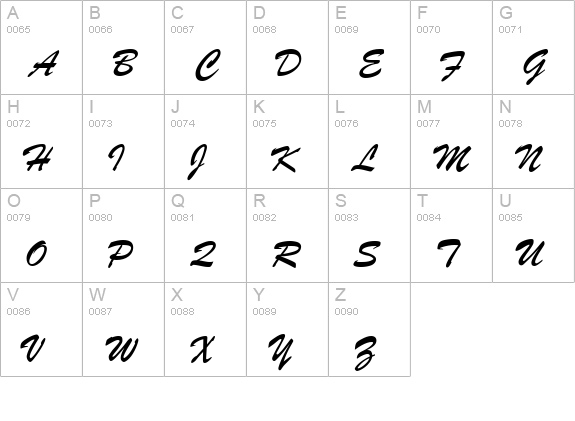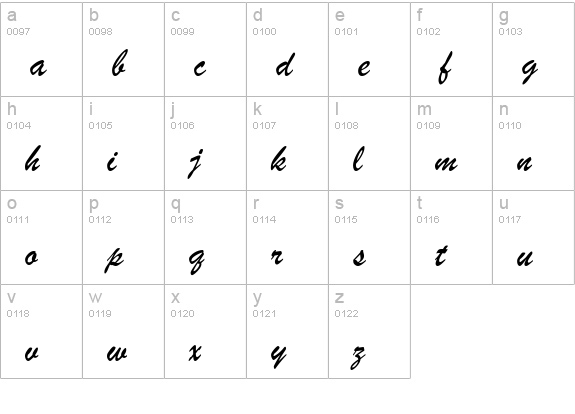
brush script mt italic font
Brush script mt style.
Brush script mt italic font. Onlinewebfontscom is internet most popular font online download websiteoffers more than 8000000 desktop and web font products for you to preview and download. Its popularity persevered via the 1950s and waned as the influence of the worldwide typographic form grew within the 1960s. Brush script mt italic free truetype font font type. Detailed information on the brush script mt italic font.
Brush script mt font features. Please see the details of the brush script mt italic font below. The typeface is similar to foreland vintage but it has regained colossal popularity for its nostalgic association with the publish ww2 era. The details includes the note of the author license type and the representation of the font in a z a z 0 9 characters.